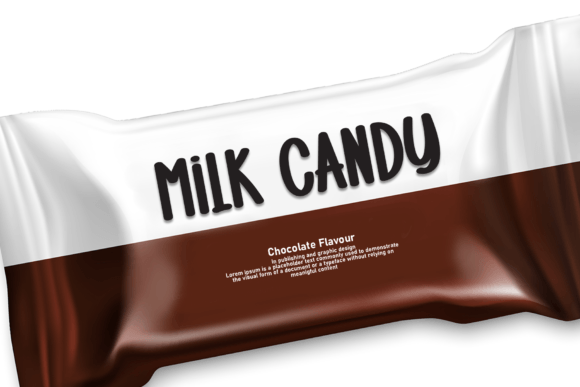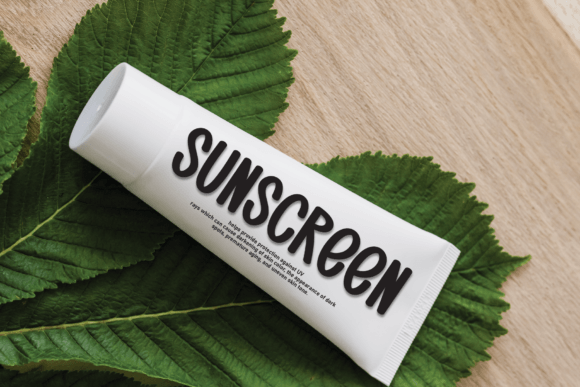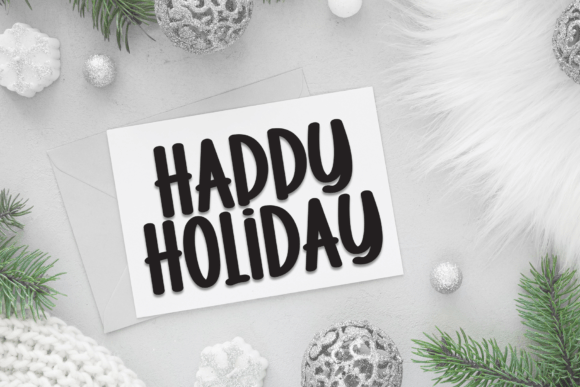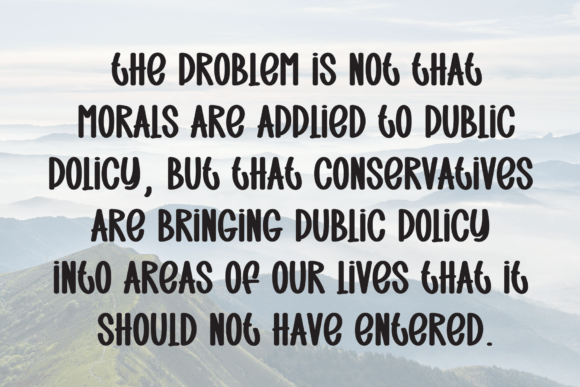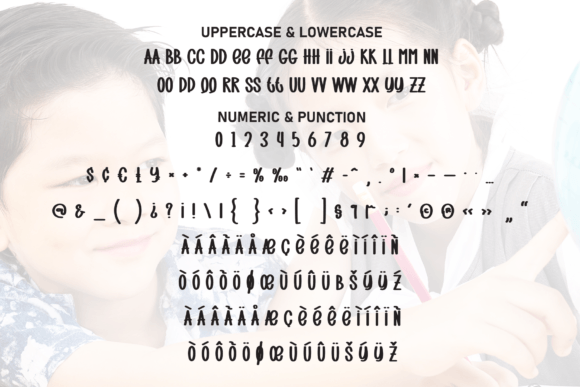
Introducing Happy School: The Elegant Handwritten Font for Creative Designs
Are you tired of using the same old fonts for your designs? Look no further! Happy School is a stylish handwritten font that exudes elegance and charm, perfect for adding a personal touch to your creations. With its fluid strokes and natural flow, this captivating font brings a sense of warmth and sophistication to any design.
The Characteristics of Happy School Font
Happy School is a carefully crafted handwritten font that boasts a unique and refined aesthetic. Its fluid strokes and natural flow create a captivating, sophisticated look that’s perfect for a variety of design applications. The font’s elegant and charming appearance makes it ideal for adding a personal touch to:
- Invitations: Whether it’s a wedding invitation, birthday party invite, or baby shower announcement, Happy School font adds a touch of warmth and sophistication.
- Branding: Use Happy School font to create a unique and memorable brand identity that sets you apart from the competition.
- Social Media: Add a personal touch to your social media posts, stories, and graphics with this beautiful handwritten font.
Why Choose Happy School Font?
With so many fonts available, why choose Happy School? Here are just a few reasons why designers and crafters love this elegant handwritten font:
- Unique and Refined Aesthetic: Happy School font has a distinct and sophisticated look that will elevate your designs and make them stand out.
- Versatile: This font is perfect for a wide range of design applications, from invitations and branding to social media and more.
- Easy to Read: Despite its elegant appearance, Happy School font is easy to read, making it perfect for body text and headlines.
- Customizable: Use Happy School font to create a unique and personalized design that reflects your brand or personal style.
Tips for Using Happy School Font
To get the most out of Happy School font, here are a few tips to keep in mind:
- Pair with Other Fonts: Combine Happy School font with other fonts to create a unique and visually appealing design.
- Experiment with Colors: Try out different colors and color combinations to find the perfect match for your design.
- Use for Headlines and Body Text: Happy School font is perfect for both headlines and body text, making it a versatile addition to your design toolkit.
Who Can Benefit from Happy School Font?
Happy School font is perfect for a wide range of designers and crafters, including:
- Graphic Designers: Add a touch of elegance and sophistication to your designs with Happy School font.
- Stationery Designers: Create beautiful and unique stationery, including invitations, greeting cards, and more.
- Social Media Influencers: Use Happy School font to add a personal touch to your social media posts and graphics.
- Crafters: Happy School font is perfect for crafters who want to add a touch of elegance and sophistication to their projects.
In conclusion, Happy School font is a stylish handwritten font that exudes elegance and charm. With its fluid strokes and natural flow, this captivating font brings a sense of warmth and sophistication to any design. Whether you’re a graphic designer, stationery designer, social media influencer, or crafter, Happy School font is the perfect addition to your design toolkit.